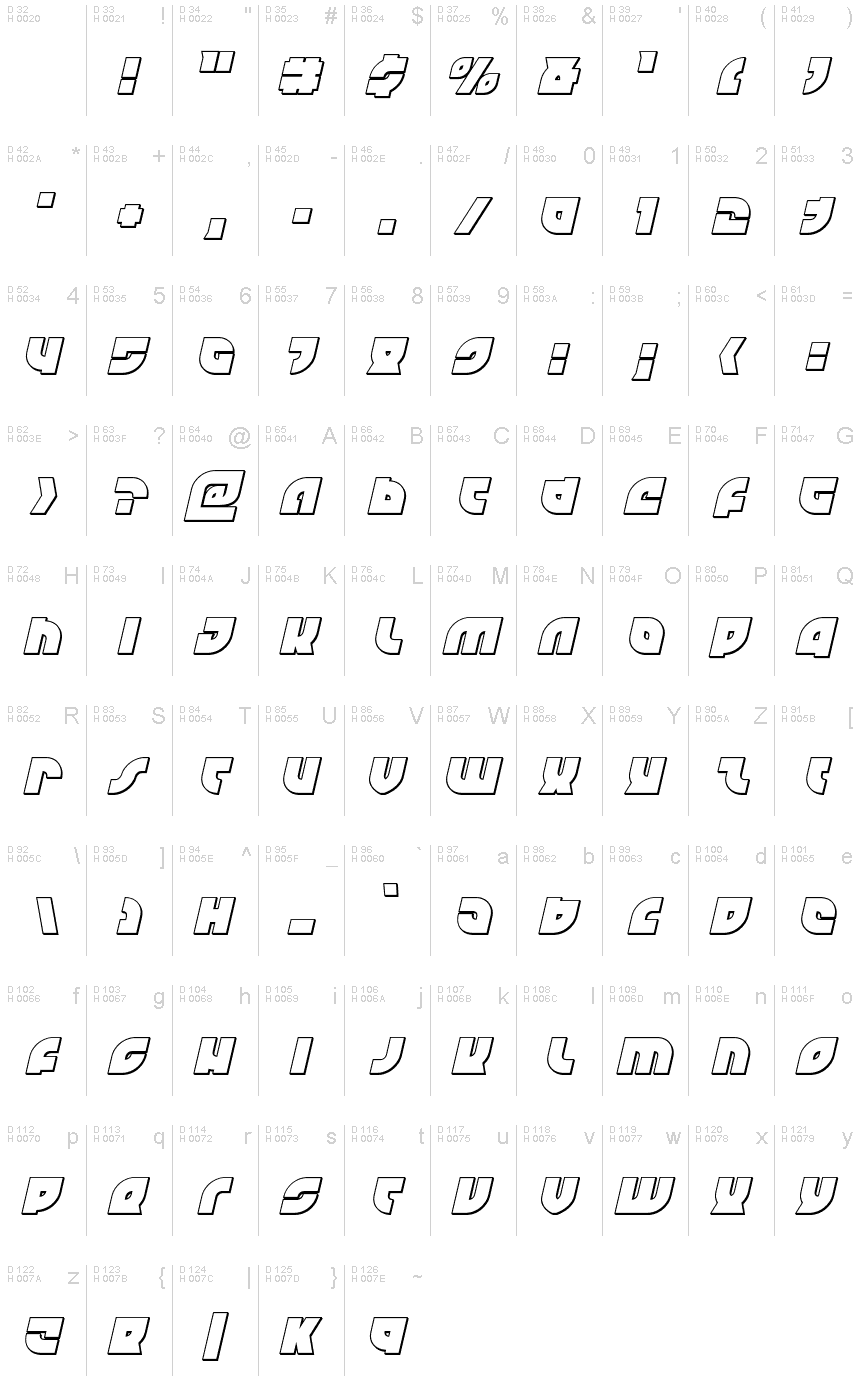
TK-421 3D Italic
TK-421 3D Italic font by Iconian Fonts is a stunning display typeface that effortlessly combines boldness with a three-dimensional twist. With its extra-bold weight and unique italic style, this font exudes confidence and modernity. Perfect for eye-catching headlines, advertisements, and logo designs, TK-421 3D Italic will bring depth and dimension to your projects. Whether you're designing futuristic sci-fi posters or contemporary branding materials, this font will make your creations stand out from the crowd. Let TK-421 3D Italic take your design game to new heights with its striking visual appeal.